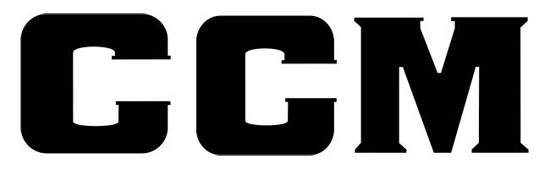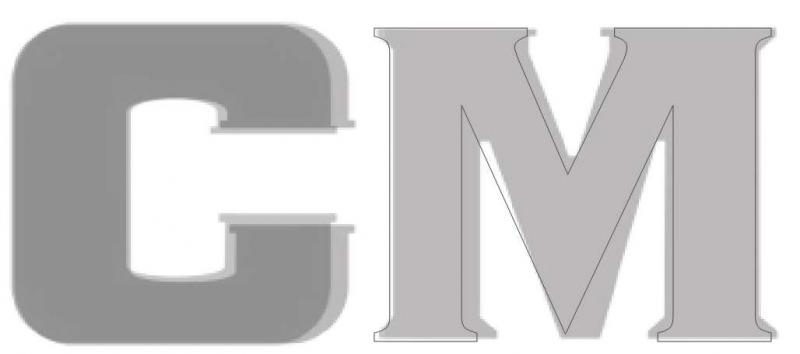
Customer changed his mind. Now he wants this font
I used your help to find the other font but then the customer decided he like the other font. The problem was i couldn't find the font so i just redrew it in corel so i don't know the name of the font. He wants his company name spelled out in it. Any help would be VERY much appreciated. Thanks
Not only do the Cs don't jive with the M, they also don't jive with each other.
As well, the M is only "close" to a stretched Copperplate Heavy "M"
Show the dumbass how it's supposed to look using Copperplate the correct way. Otherwise you'll keep wasting time trying to create something wrong and that probably doesn't exist.